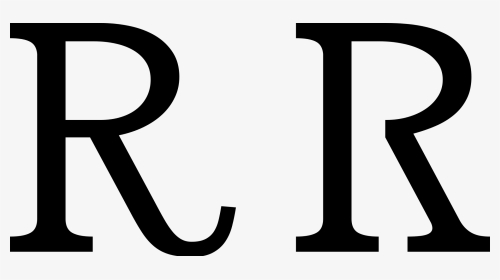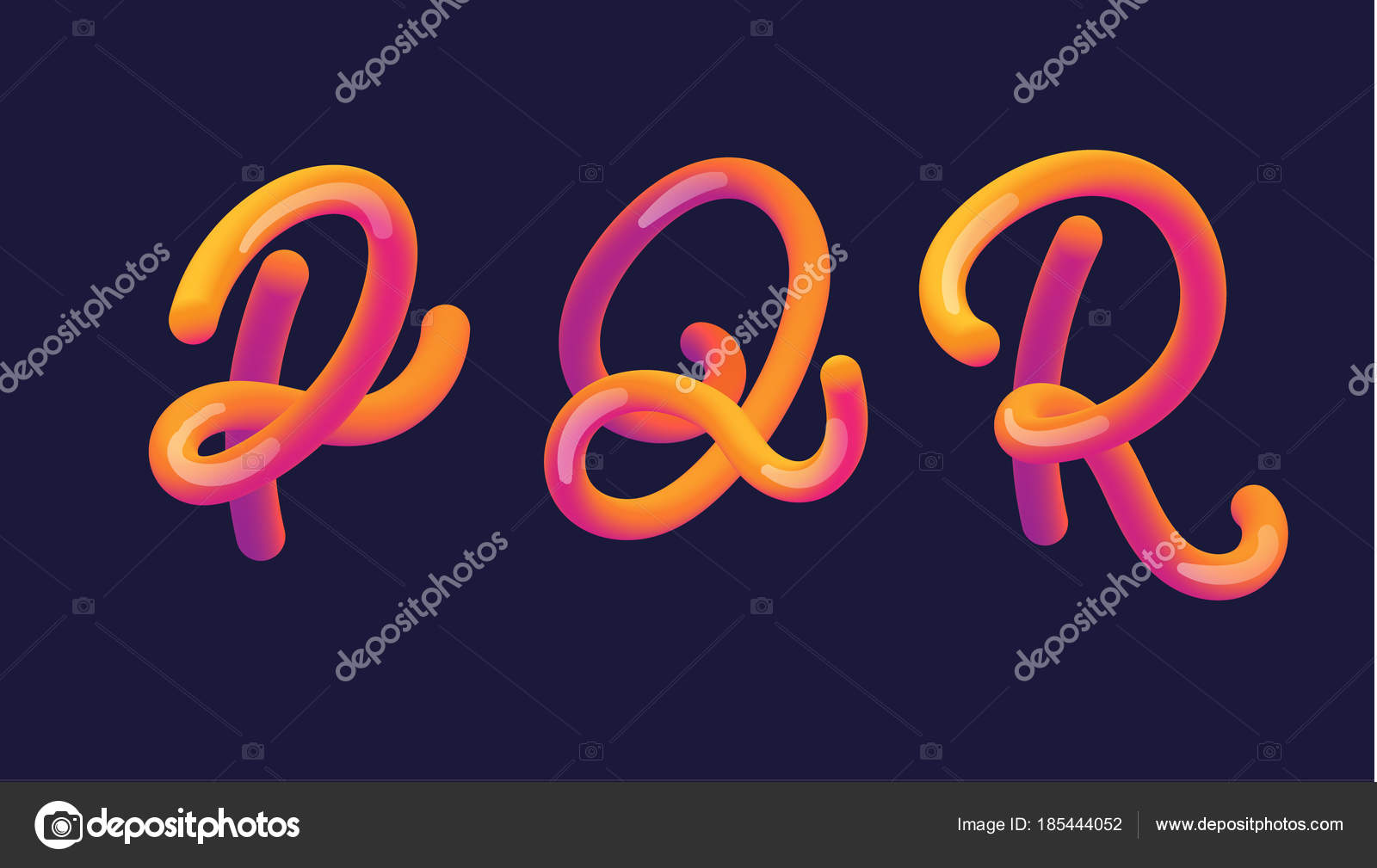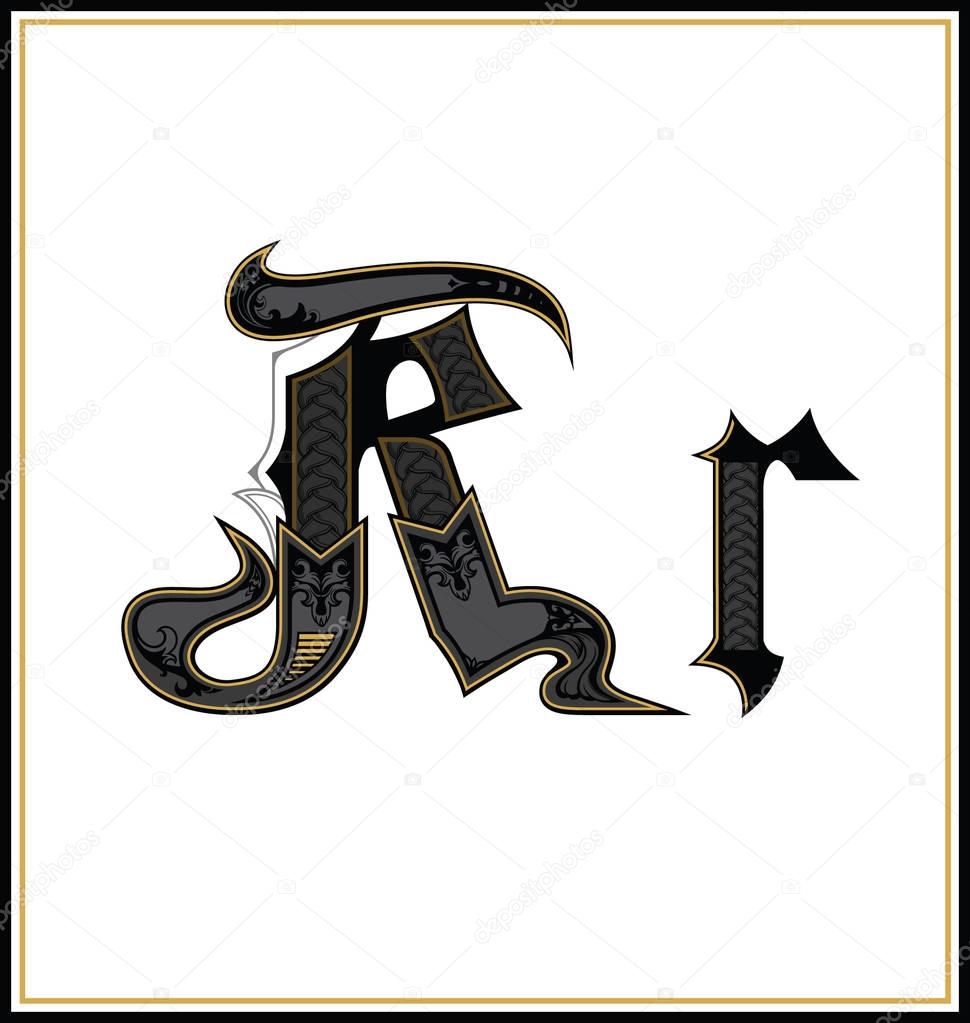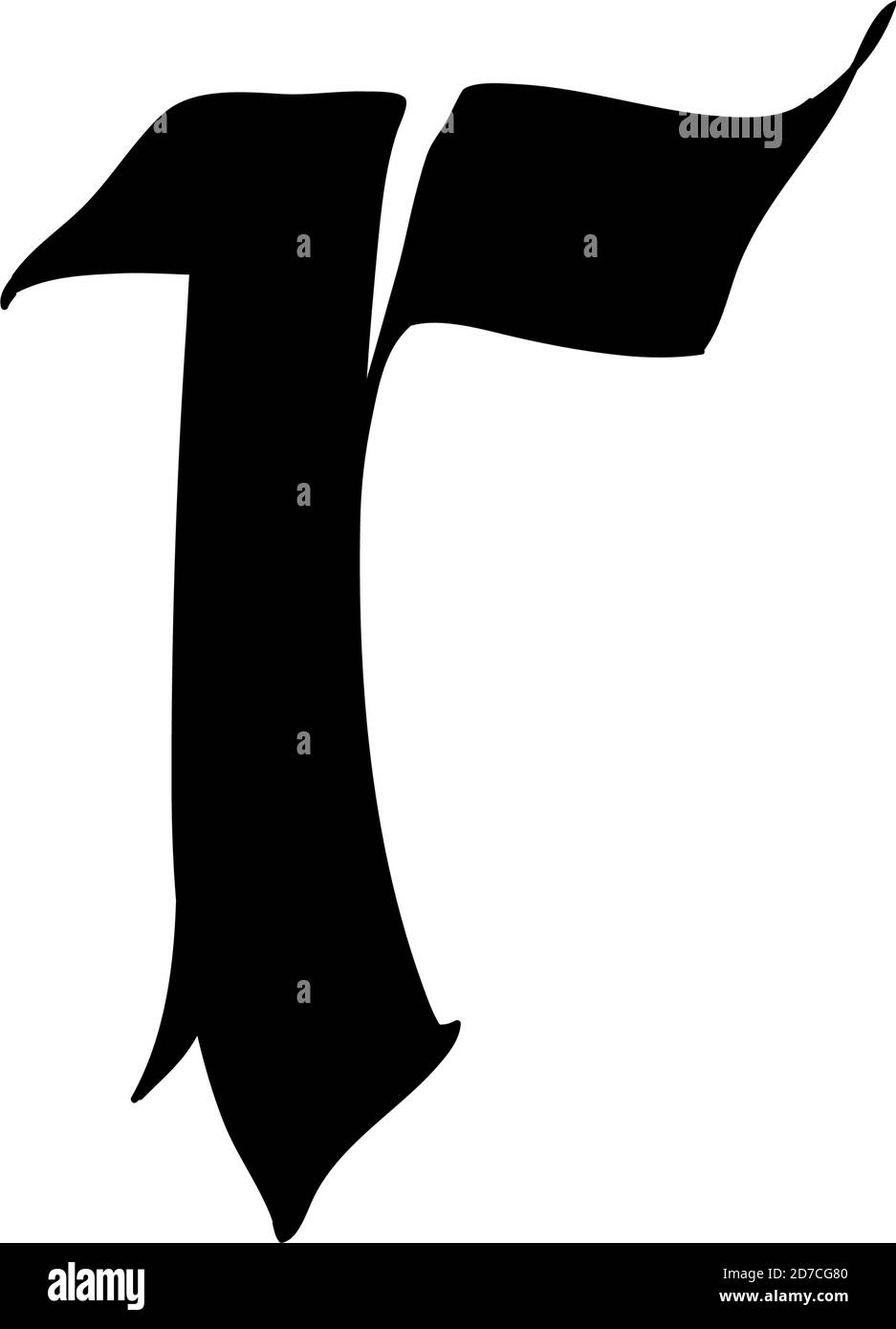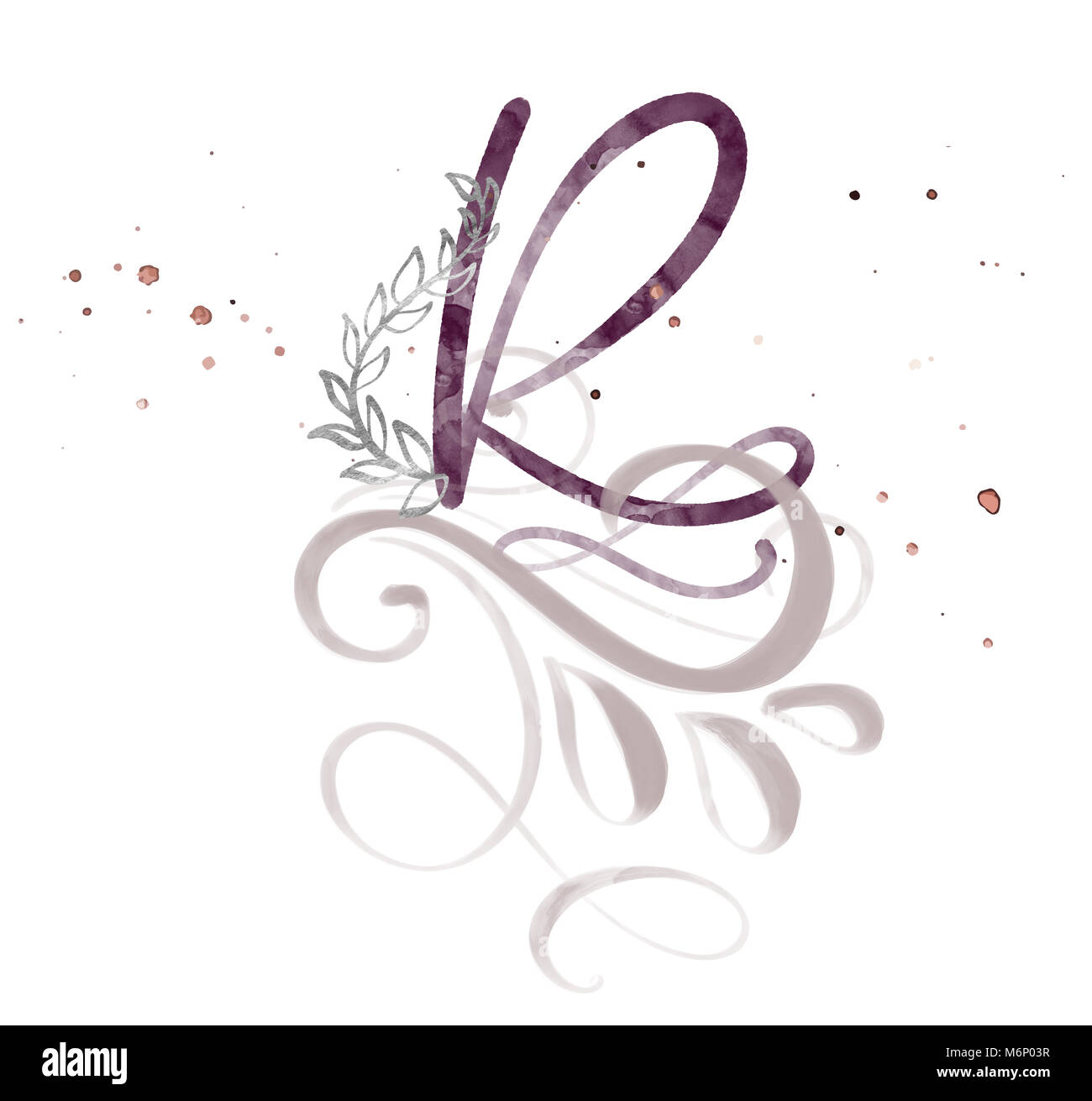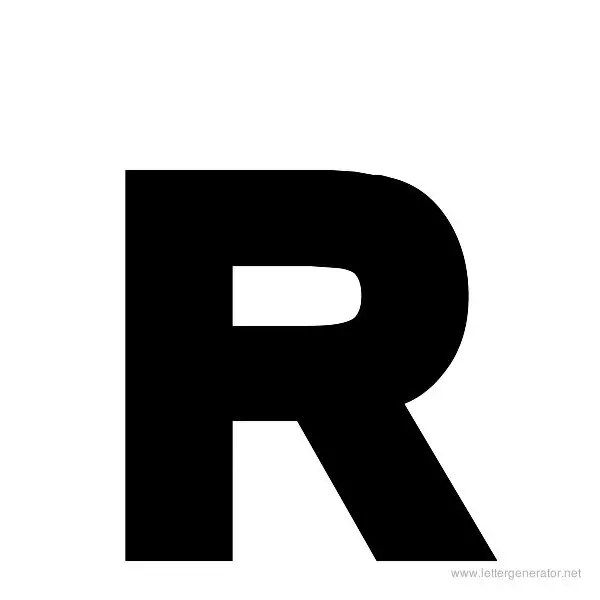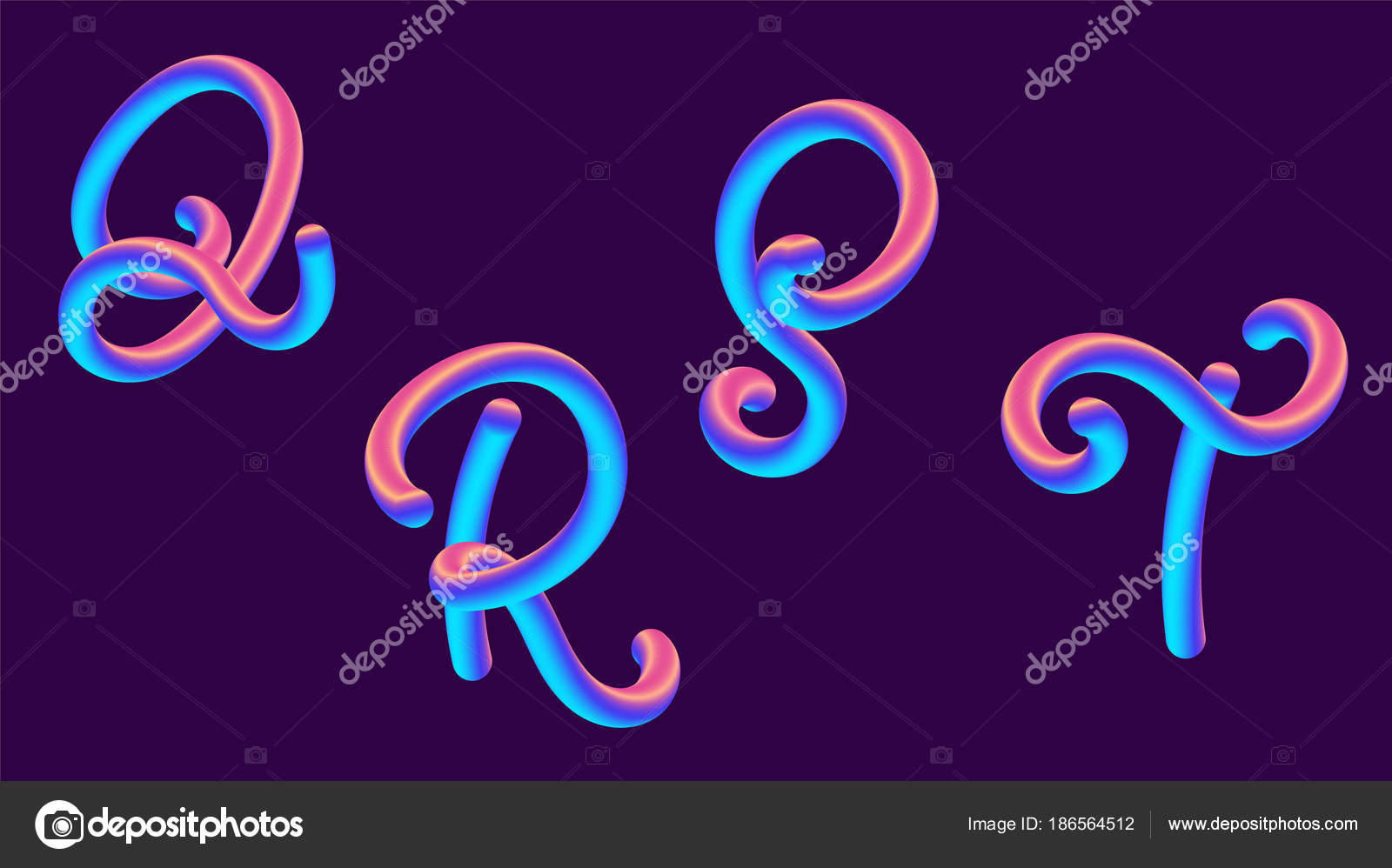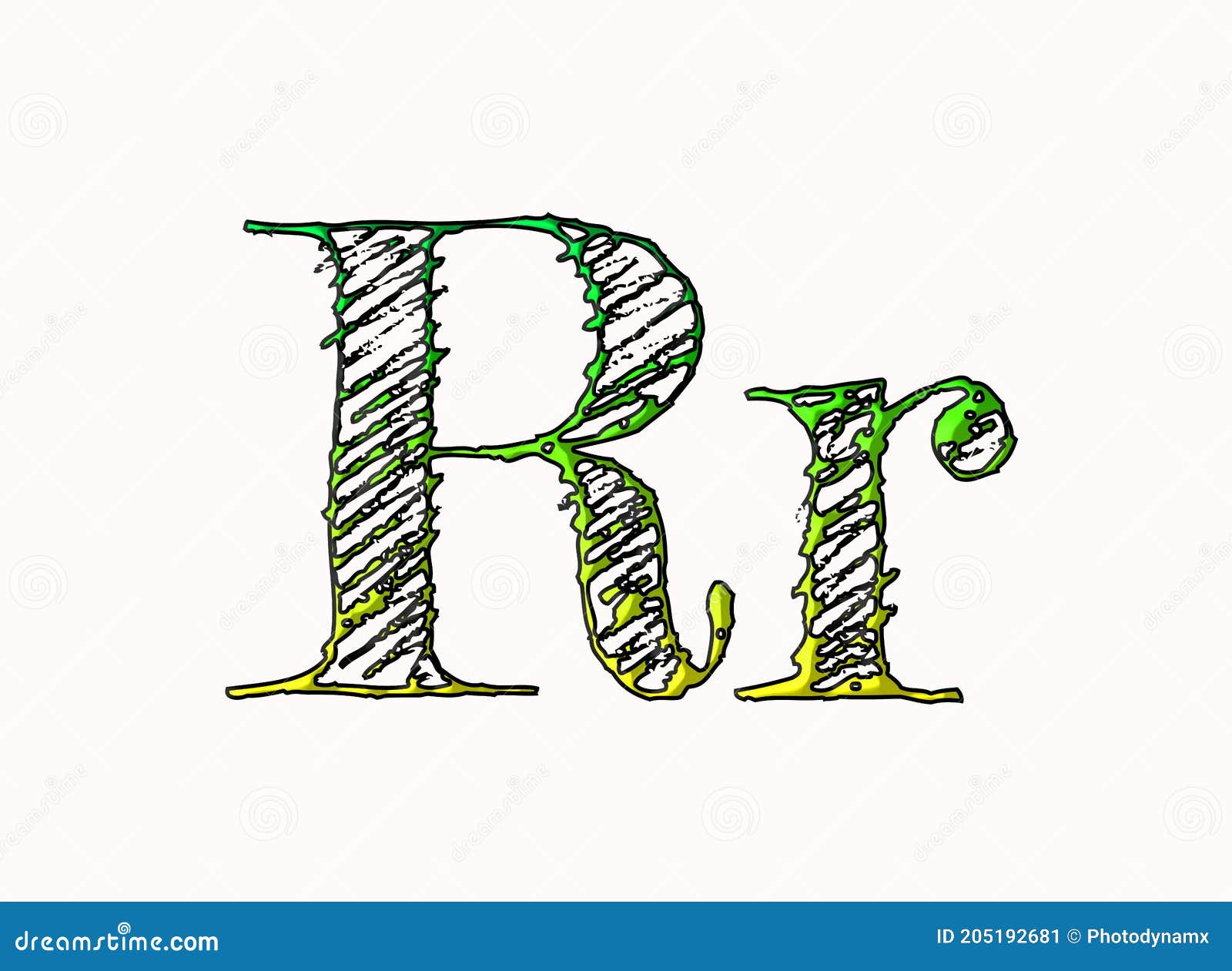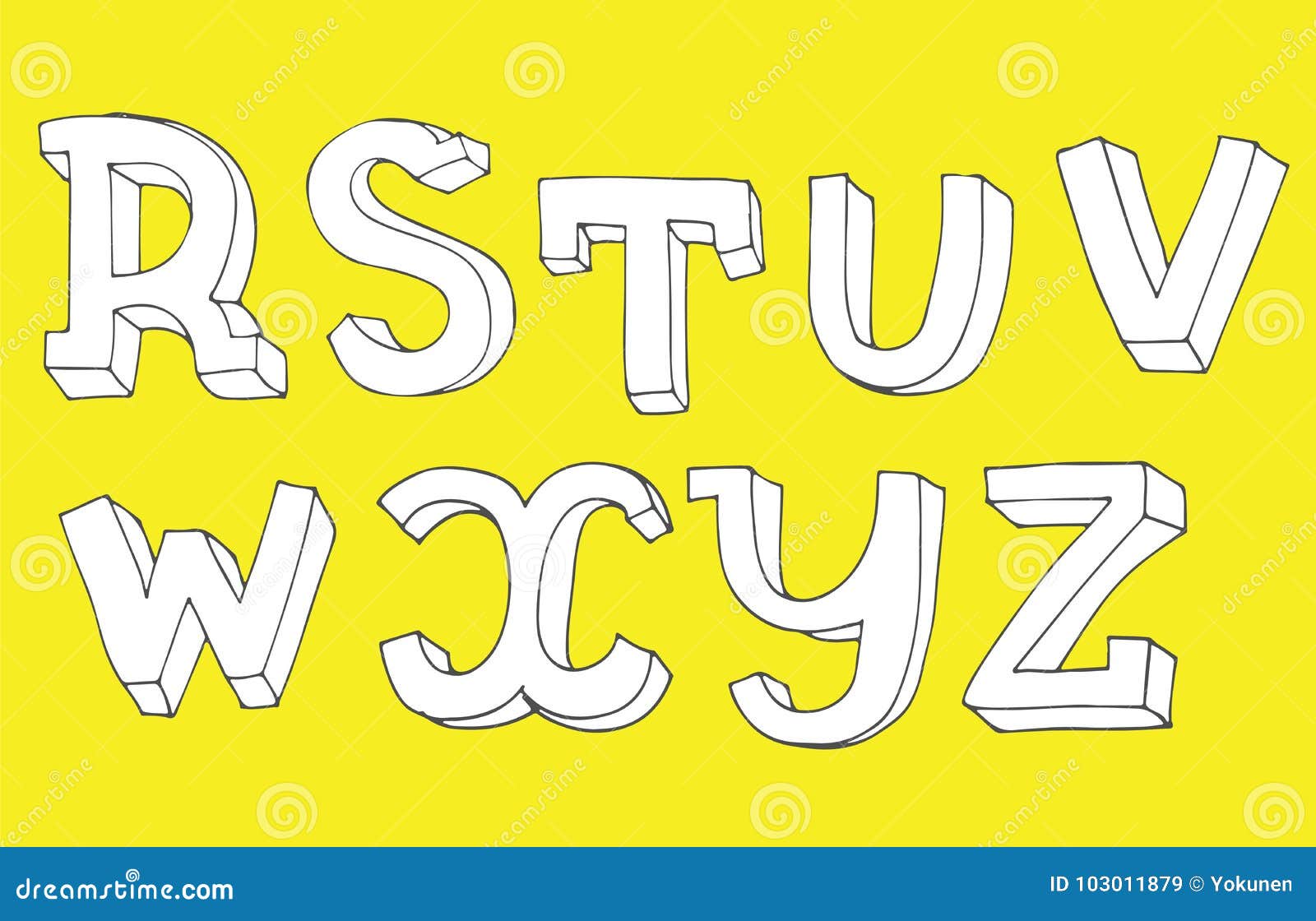
Was Going For That 80s Brush Font Style Lettering
Lettering r font style. Forms of it were also used in early printing presses. When you think about font styles many types can make it difficult to make the right selection. Fire Ice Decorative Typewriter Stencil Army Retro Initials Grid Various.
When you start modifying the shapes of the letters you are now illustrating hand-drawn lettering. The handling of fonts has been optimized. Over 50000 Free Fonts.
Find and download the right font for your next tattoo. We also provide delightful beautifully crafted icons for common actions and items. Lettering styles include tribal traditional sailor blackletter fancy cursive script etc.
Its one of my favorite styles of lettering. New fonts added daily. As for the size see cex.
Some decorative fonts have found their way back into the generator. A faster switching is therefore also possible. You can give a new looks to your thoughts through the font.
You want to use different fonts in your graphs. Hand-lettered is the style where you draw each letter individually as opposed to writing them as in cursive or calligraphy. 1001 Free Fonts offers the best selection of Lettering Fonts for Windows and Macintosh.
Font Style Generator provides you the best stylish fonts. We have 51 free Old-english Fonts to offer for direct downloading 1001 Fonts is your favorite site for free fonts since 2001. One traditional form of calligraphic lettering is Gothic sometimes called black letter This script style was used extensively throughout medieval Europe and was created by making heavy downstrokes with the brush.